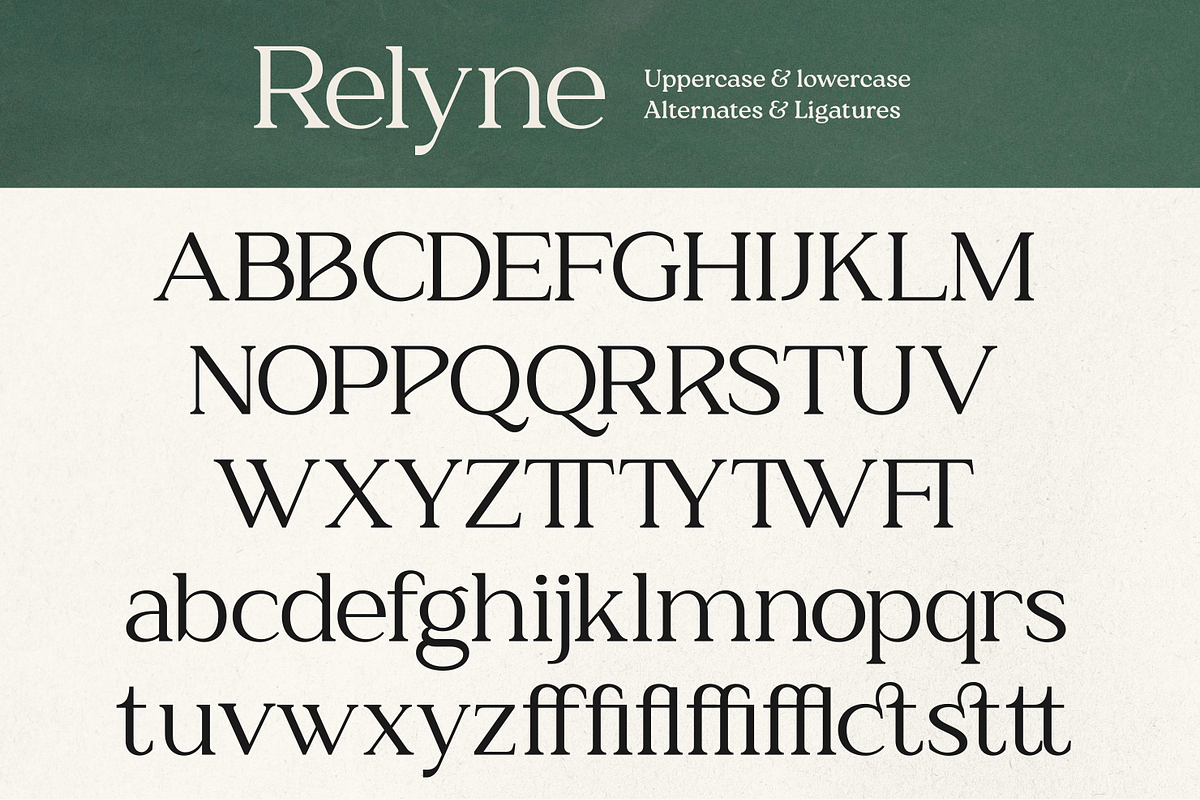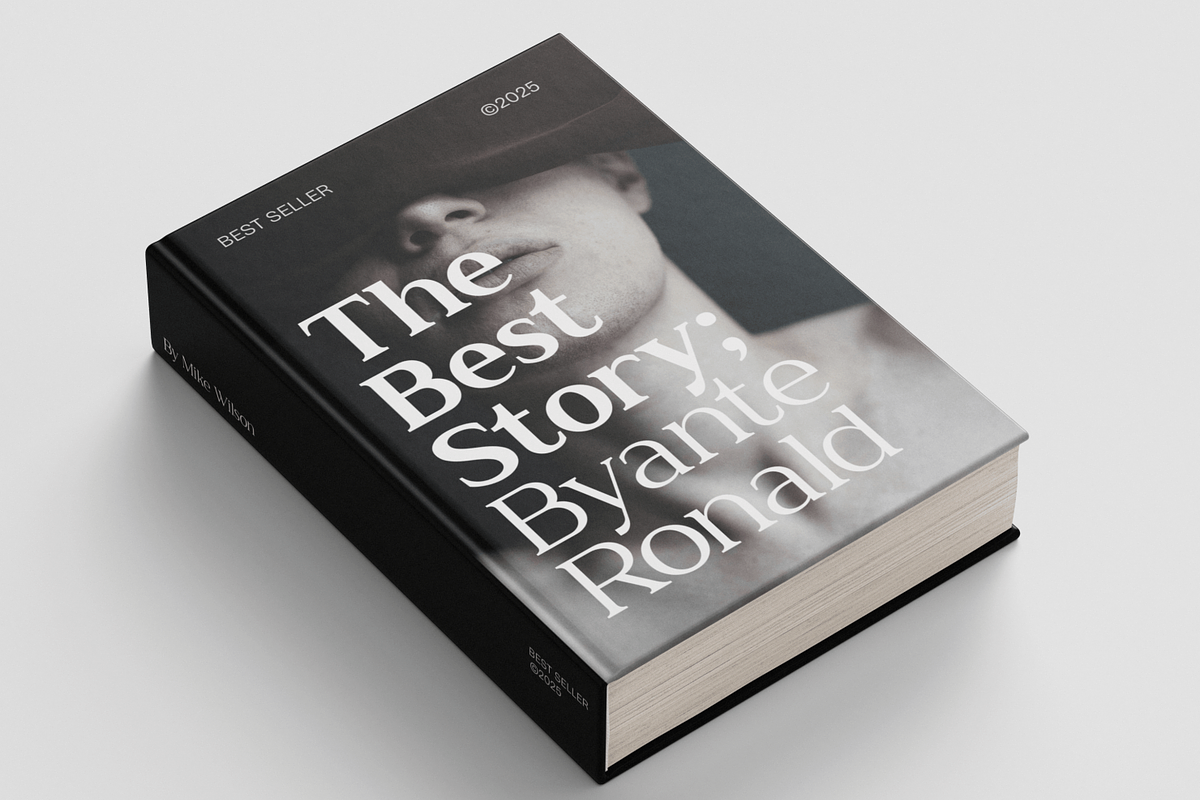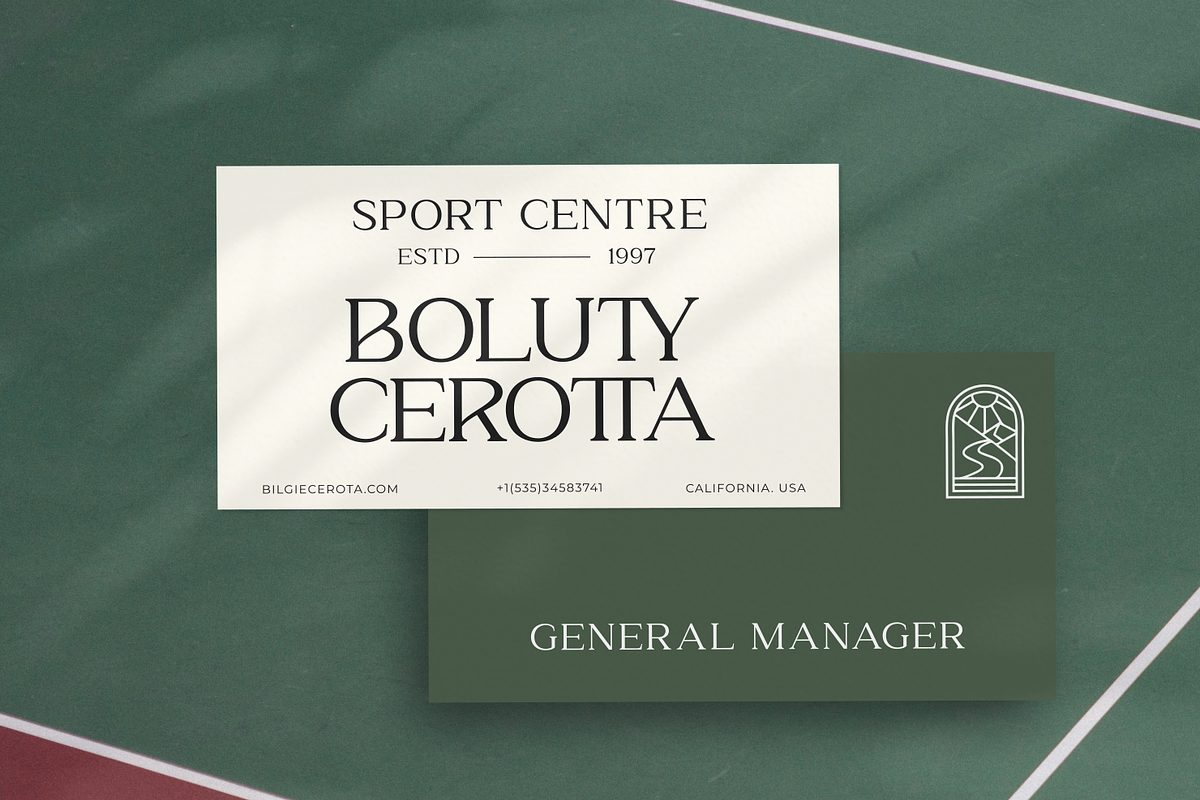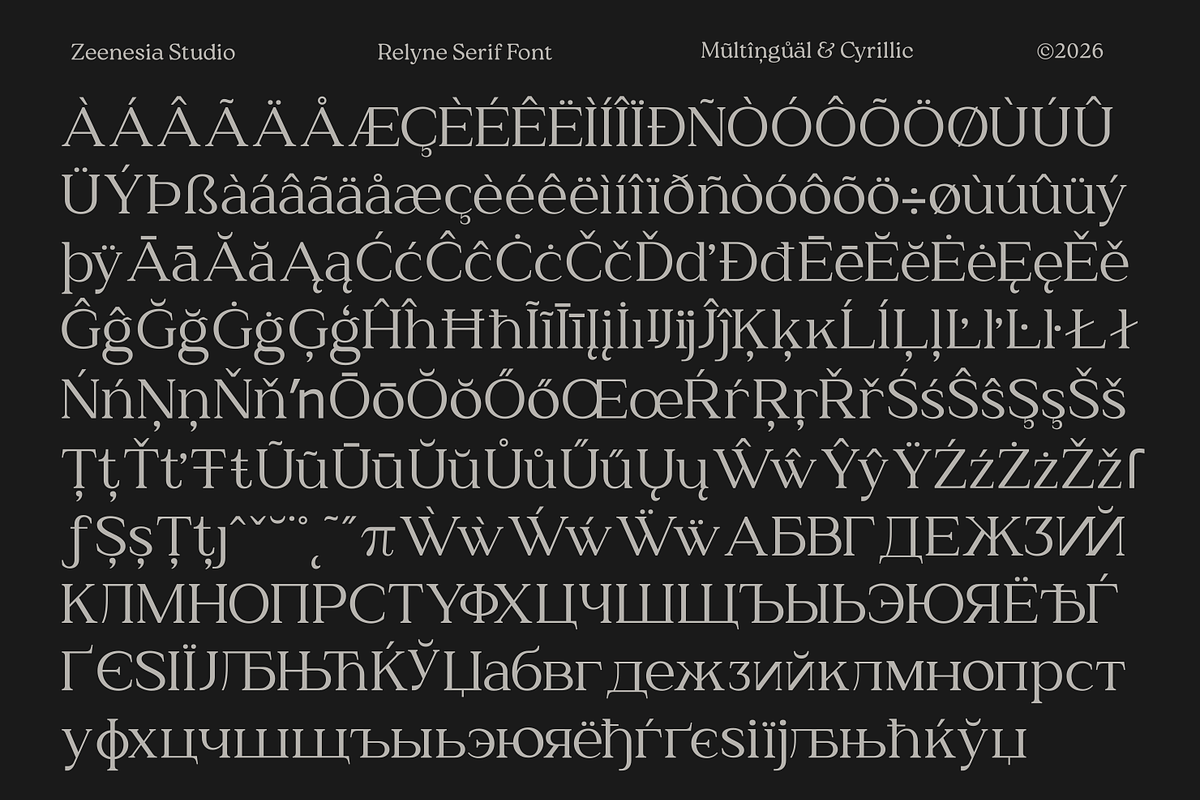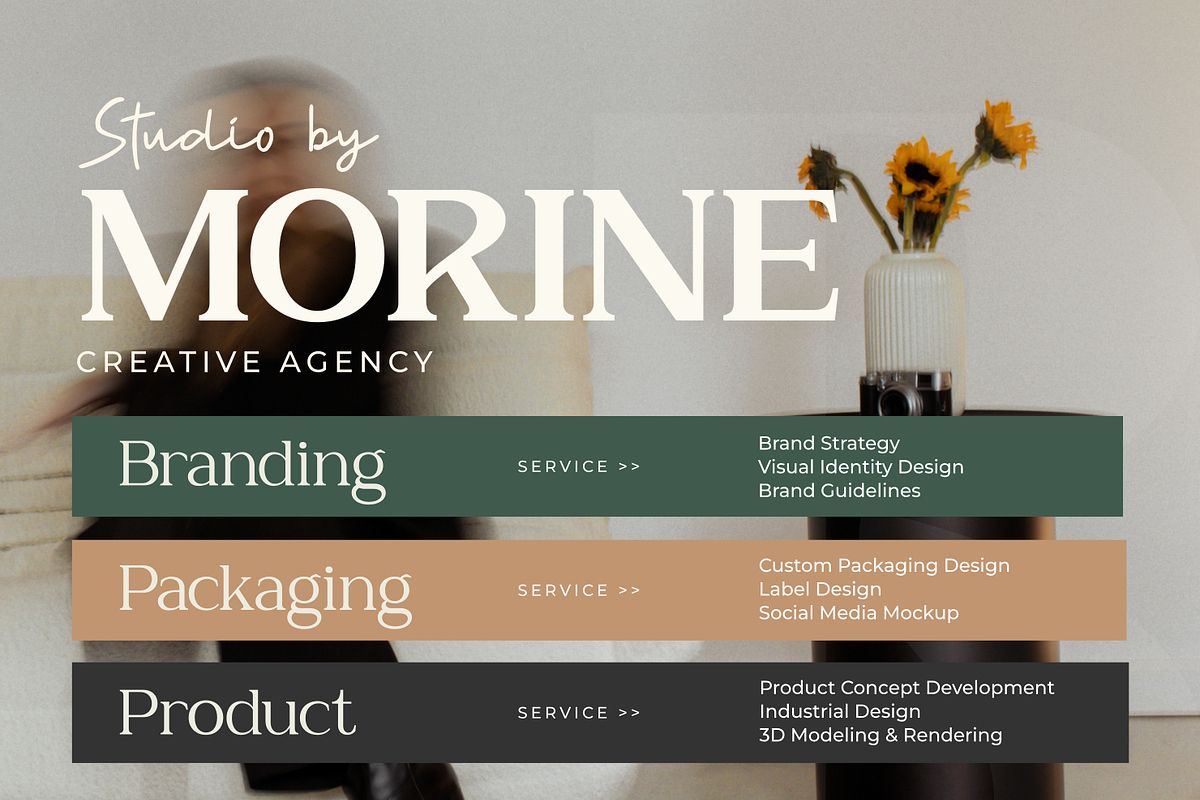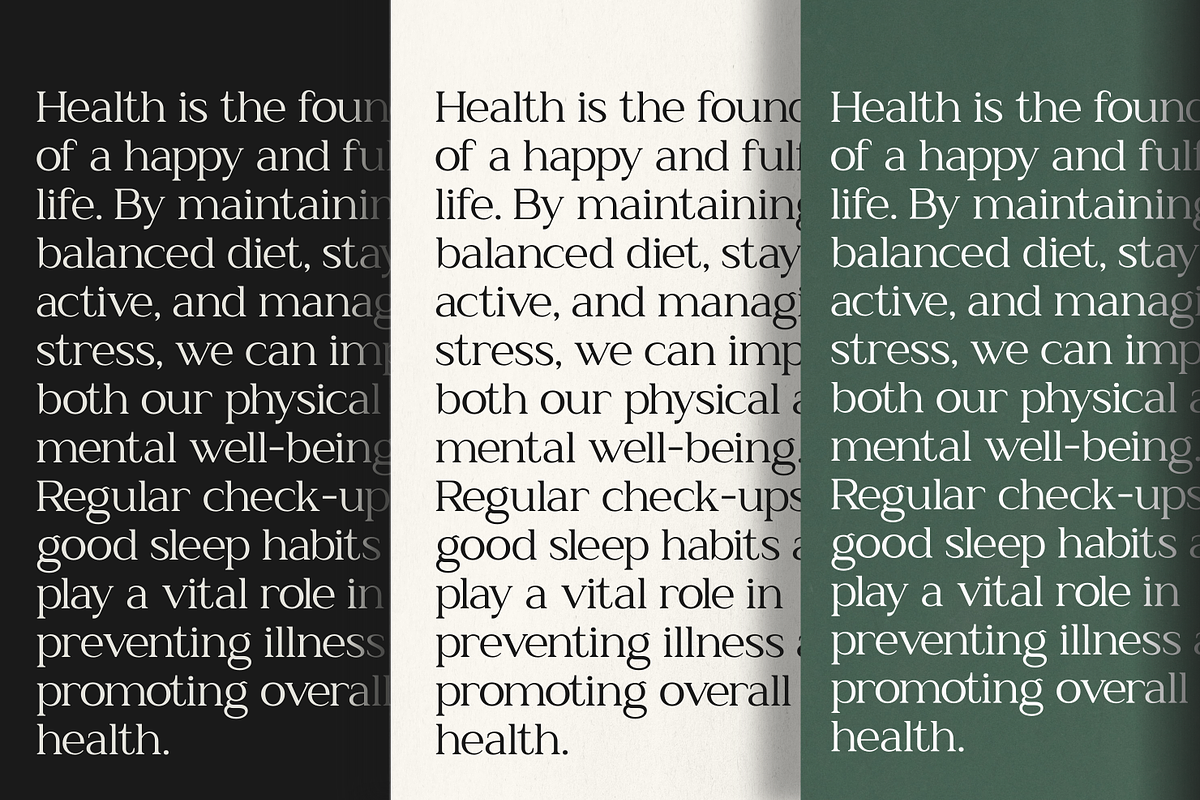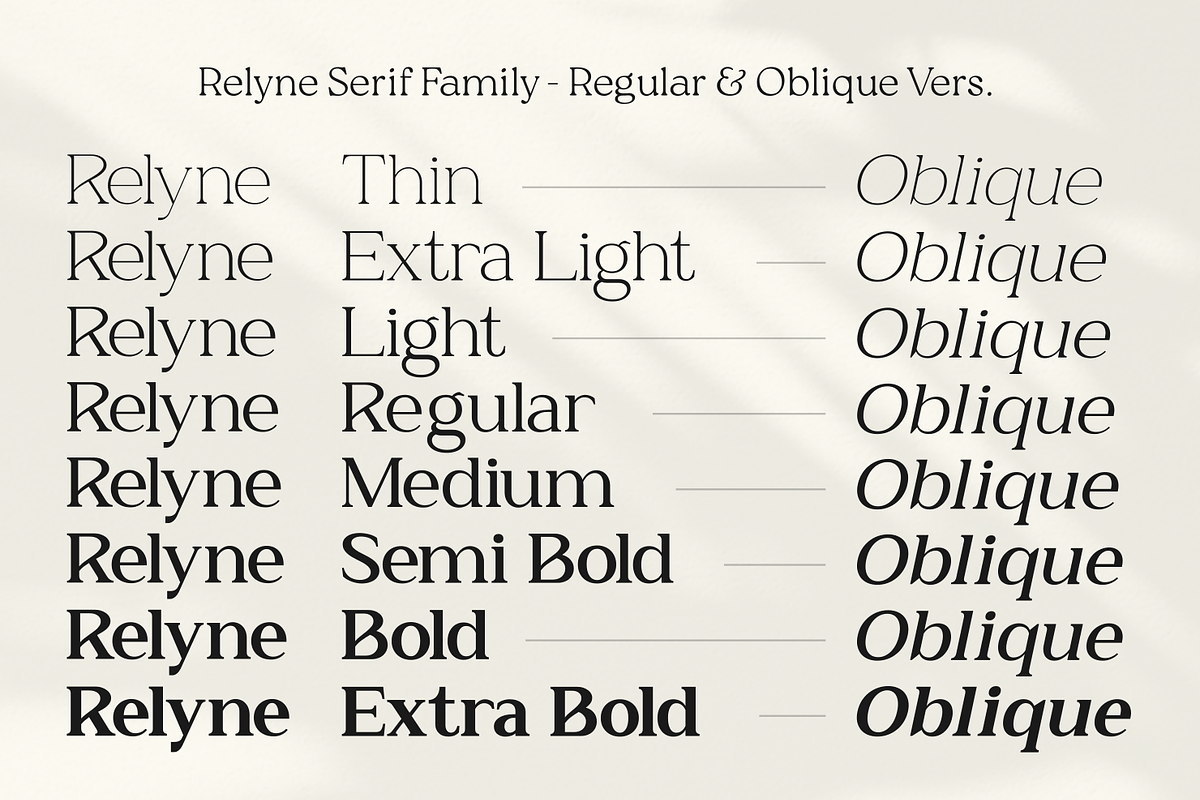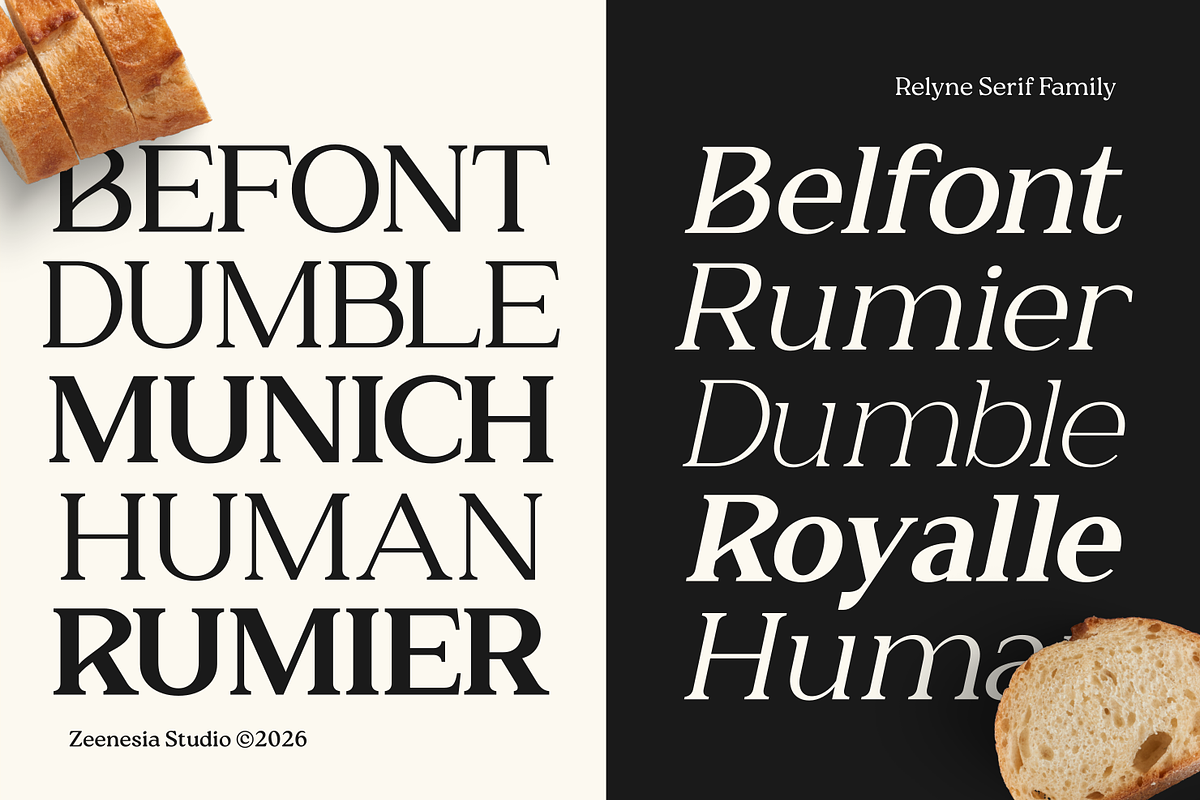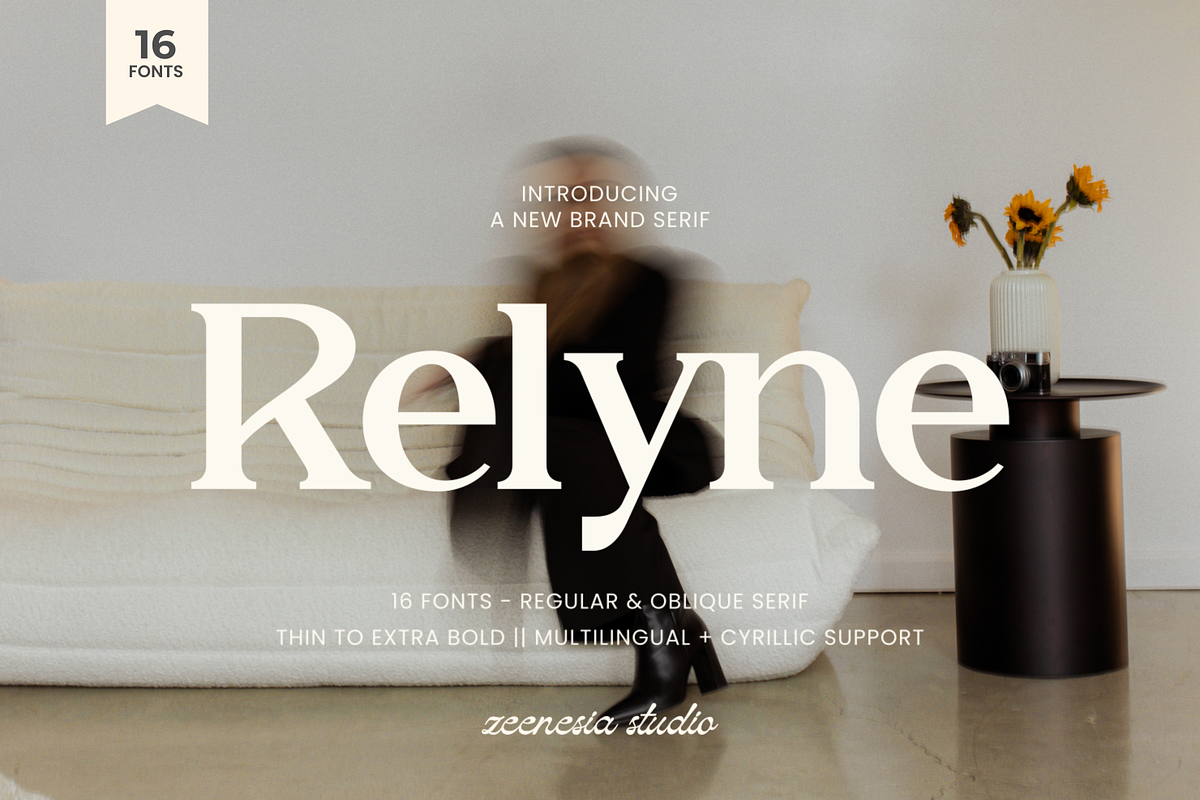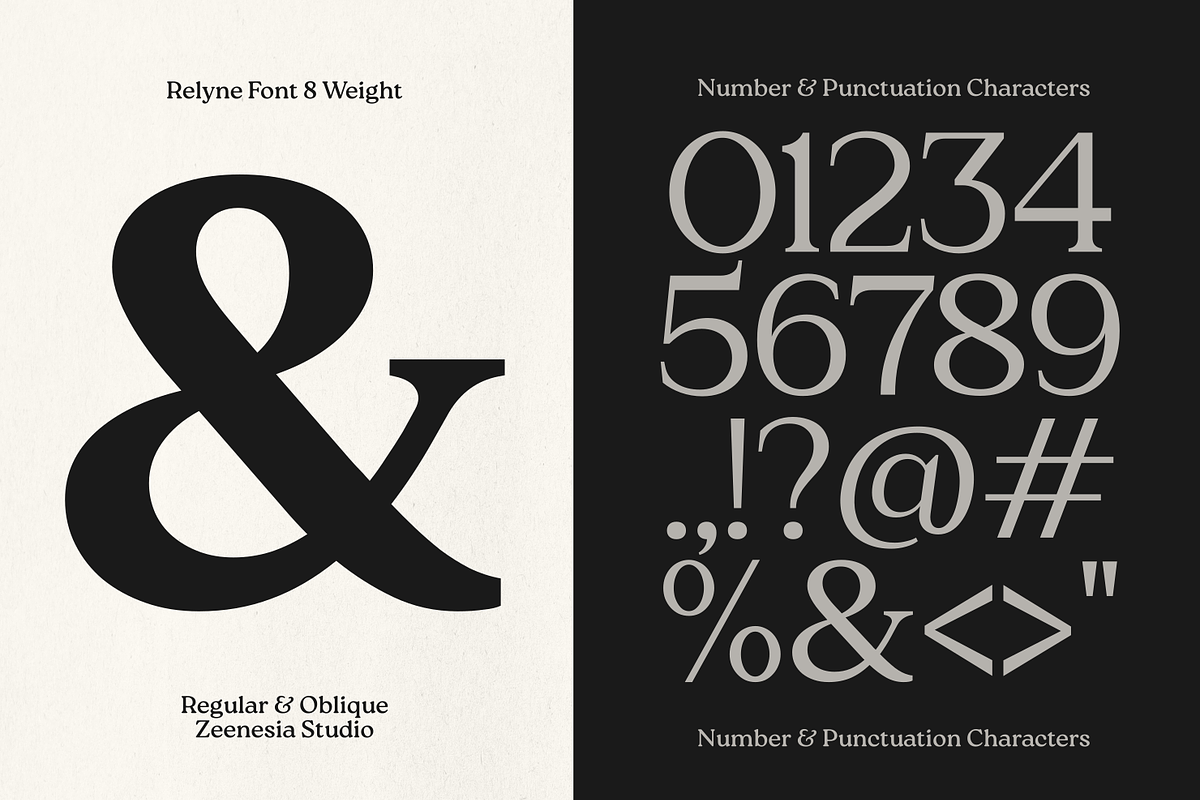
Relyne Serif
Relyne – A Family Serif Font. Relyne is an elegant serif font family designed with a timeless yet modern character. This typeface consists of Regular and Oblique versions, offering flexibility while maintaining a clean and cohesive typographic style. Relyne offers a complete family of 16 fonts, making it suitable for a wide range of design needs from editorial layouts and branding. Relyne also includes Multilingual Support and Cyrillic characters.
- Multilingual & Cyrillic Support